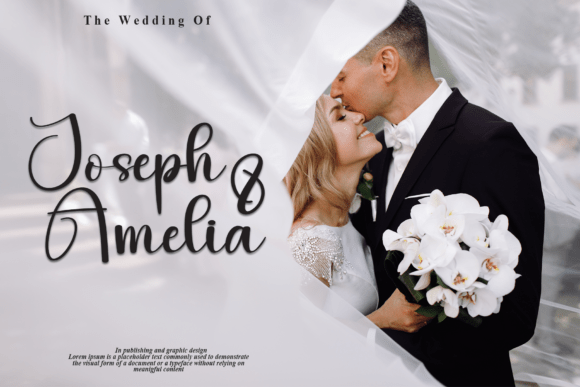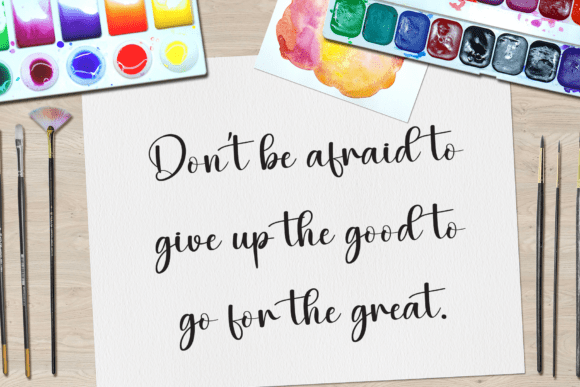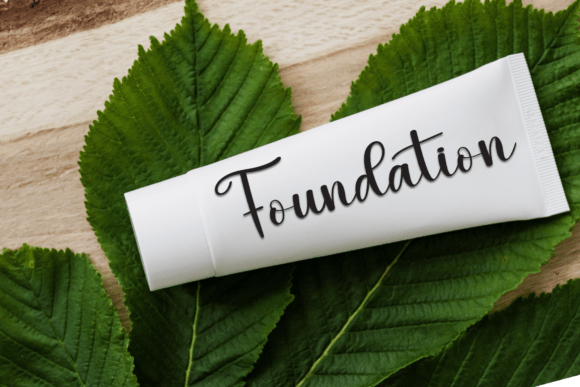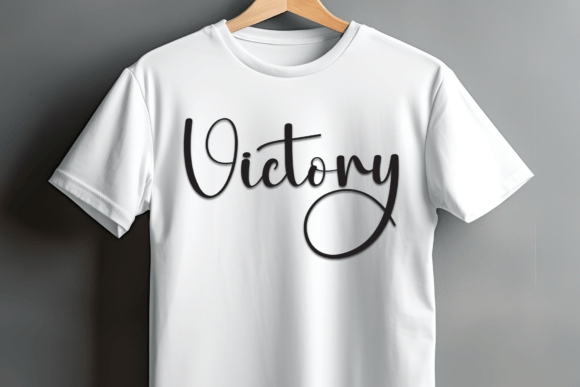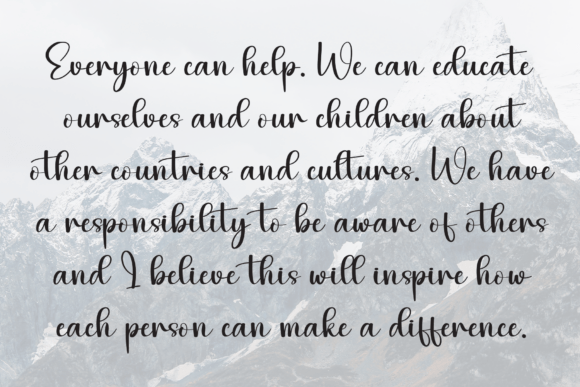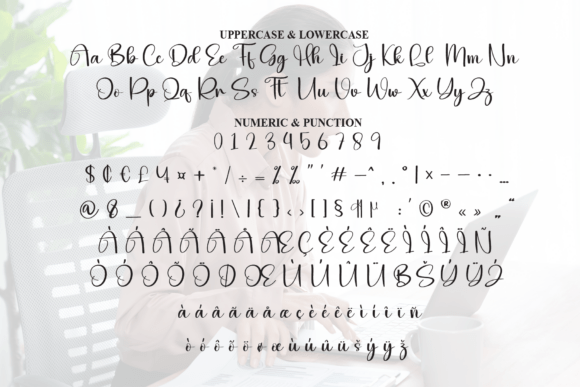
Diligent Font: Elevate Your Designs with Elegance and Sophistication
In the world of typography, a well-crafted font can make all the difference in elevating your design from ordinary to extraordinary. If you’re a designer, crafter, or simply someone who appreciates the art of beautiful lettering, then you’re in for a treat with the Diligent Font. This stunning handwritten font is designed to bring a touch of elegance and sophistication to your projects, making it perfect for a wide range of applications.
The Characteristics of Diligent Font
Diligent Font is a masterpiece of typographic design, boasting flowing strokes and stylish curves that exude refinement and poise. Its balanced script style strikes the perfect balance between sophistication and hand-crafted charm, making it an ideal choice for designs that require a professional yet personal feel. Whether you’re creating logos, invitations, feminine branding, business cards, or elegant quote designs, Diligent Font is sure to impress.
What Makes Diligent Font So Special?
So, what sets Diligent Font apart from other fonts on the market? Here are just a few reasons why this font is a cut above the rest:
- Refined Design: Diligent Font features a refined design that is both elegant and sophisticated, making it perfect for high-end designs that require a touch of luxury.
- Handwritten Charm: Despite its refined design, Diligent Font still retains a hand-crafted charm that makes it feel personal and approachable.
- Versatility: Diligent Font is incredibly versatile, making it suitable for a wide range of applications, from logos and branding to invitations and quote designs.
- Easy to Read: The balanced script style of Diligent Font makes it easy to read, even at smaller font sizes, making it perfect for designs that require a lot of text.
Diligent Font is a dream come true for designers and crafters who are looking for a font that can help them create stunning designs with ease. Whether you’re a seasoned pro or just starting out, Diligent Font is easy to use and can be incorporated into your designs in no time. Here are just a few ways you can use Diligent Font to elevate your designs:
- Logos and Branding: Use Diligent Font to create stunning logos and branding materials that exude elegance and sophistication.
- Invitations and Stationery: Create beautiful invitations, business cards, and stationery with Diligent Font that are sure to impress.
- Feminine Branding: Diligent Font is perfect for feminine branding, adding a touch of elegance and sophistication to your designs.
- Quote Designs: Use Diligent Font to create stunning quote designs that are perfect for social media, blogs, or even print materials.
Tips for Using Diligent Font
Here are a few tips for using Diligent Font to get the most out of this beautiful font:
- Pair it with Other Fonts: Diligent Font pairs beautifully with other fonts, so don’t be afraid to experiment with different combinations to find the perfect look for your design.
- Use it for Headings and Titles: Diligent Font is perfect for headings and titles, adding a touch of elegance and sophistication to your designs.
- Experiment with Colors: Diligent Font looks stunning in a variety of colors, so don’t be afraid to experiment with different color combinations to find the perfect look for your design.
In conclusion, Diligent Font is a stunning handwritten font that is sure to elevate your designs to new heights. With its refined design, flowing strokes, and stylish curves, Diligent Font is perfect for designers, crafters, and anyone who appreciates the art of beautiful lettering. Whether you’re creating logos, invitations, feminine branding, business cards, or elegant quote designs, Diligent Font is the perfect choice. So why wait? Download Diligent Font today and start creating stunning designs that are sure to impress.